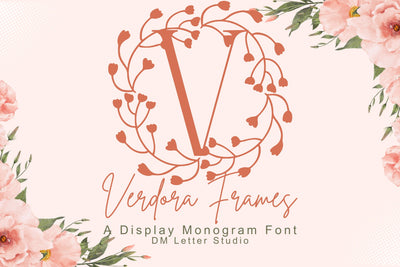
Verdora Frames Monogram
Verdora Frames Monogram – Leafy Decorative Monogram Font
Verdora Frames Monogram is a nature-inspired monogram font featuring uppercase letters framed in lush, leafy outlines. Each character is delicately designed with botanical borders, giving it an elegant and organic look. Perfect for branding, packaging, wedding materials, and seasonal crafts, this font brings a sense of earthy sophistication to your monogram designs.
Leafy Frame Design: Every letter is encased in a hand-drawn botanical frame that adds structure and beauty.
Clean Yet Ornamental: Combines minimal monogram form with detailed greenery elements.
Complete Character Set: Includes A–Z uppercase letters, numerals, punctuation, and multilingual accents.